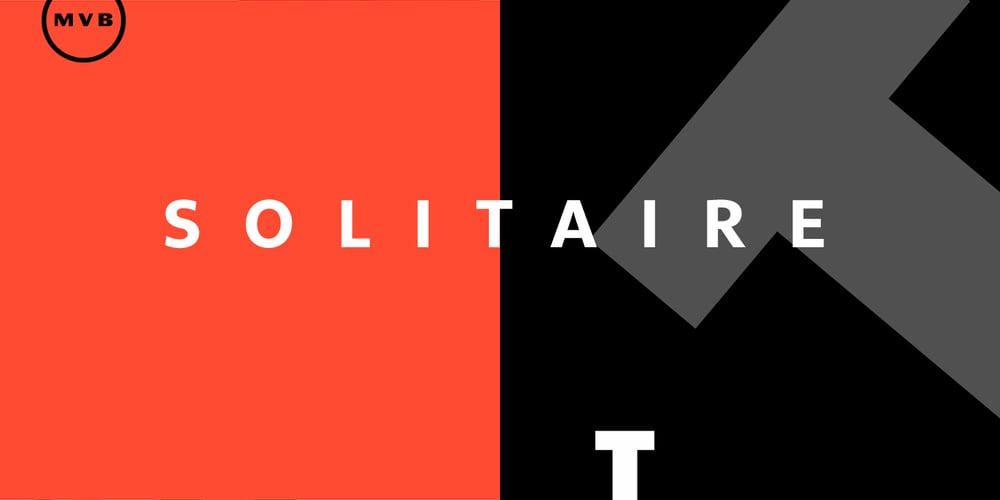
MVB Solitaire Pro Font Family was designed by Mark van Bronkhorst and published by MVB. MVB Solitaire Pro contains 22 styles and family package options. A typeface is a tool. Sure, there are frilly fonts that are more art than craft, showy faces that exist merely to call attention to themselves. But, in the end, any functional typeface worth its salt lives to serve one thing first: the text, the content. Everything else—the fashion of the moment, the allure of individual words and letters—is secondary. MVB Solitaire™ epitomizes this universal typographic mandate. As a tempered sans serif somewhere between a humanist and a gothic, MVB Solitaire captures a 21st-century neutrality. But practical doesn’t have to mean banal. MVB Solitaire has a soul. While some “neutral” type is dead the moment the ink hits the page, MVB Solitaire delivers text that feels lively, contemporary, relevant. Readers will not tire of this type. Behind the useful exterior is an arsenal of thoughtful technical features. It’s no surprise that this family’s creator, Mark van Bronkhorst, was first a graphic designer before becoming a type designer. Mark built all the goodies into MVB Solitaire that he would appreciate as a user: case-sensitive punctuation; alternate forms that can be invoked individually or together; oldstyle and lining figures in both tabular and proportional widths; slightly shorter lining figures that don’t stand out in running text, but also cap-height figures for all-cap settings; and the ability to speak nearly any Latin-based language. MVB Solitaire aspires to be the sort of workhorse that a designer keeps installed on their system at all times. It is a family bound to have a permanent spot in the font menu, always at the ready for projects (those most common of all) where the typography mustn’t mask the message. It has that quality that all truly useful typefaces have: the capacity to get the job done without getting in the way.